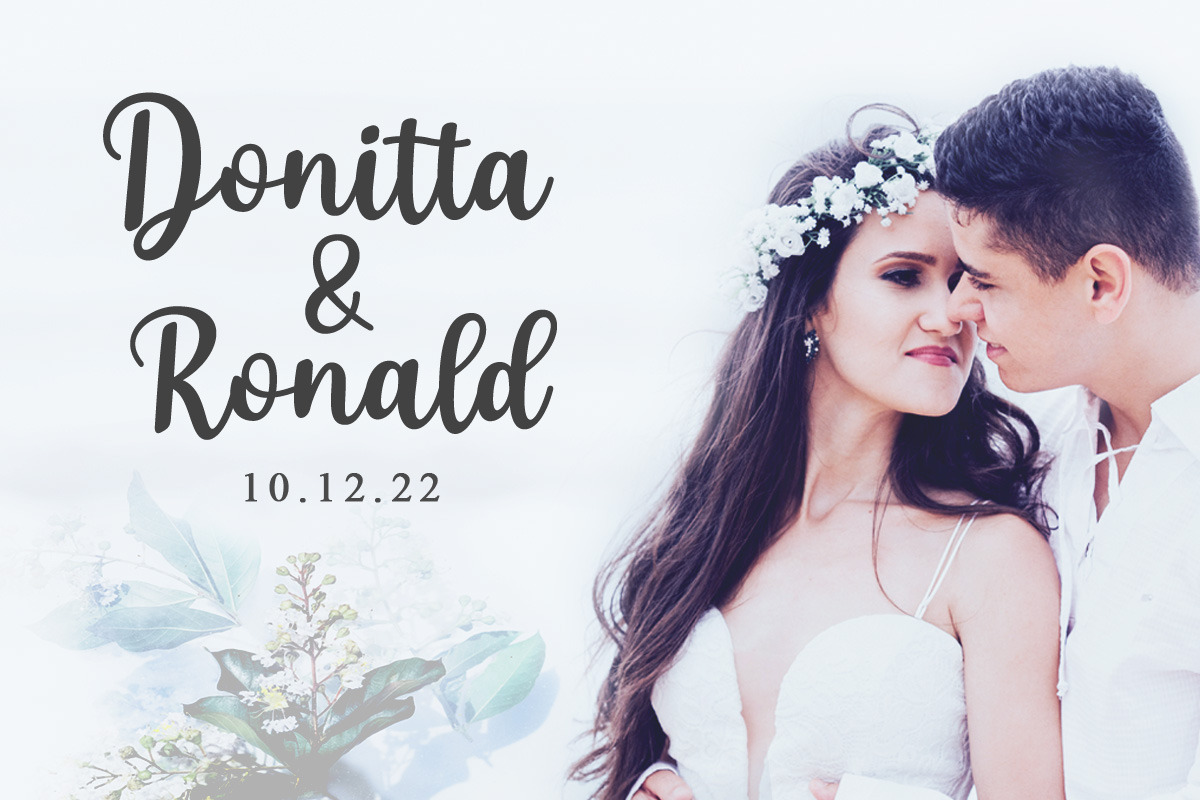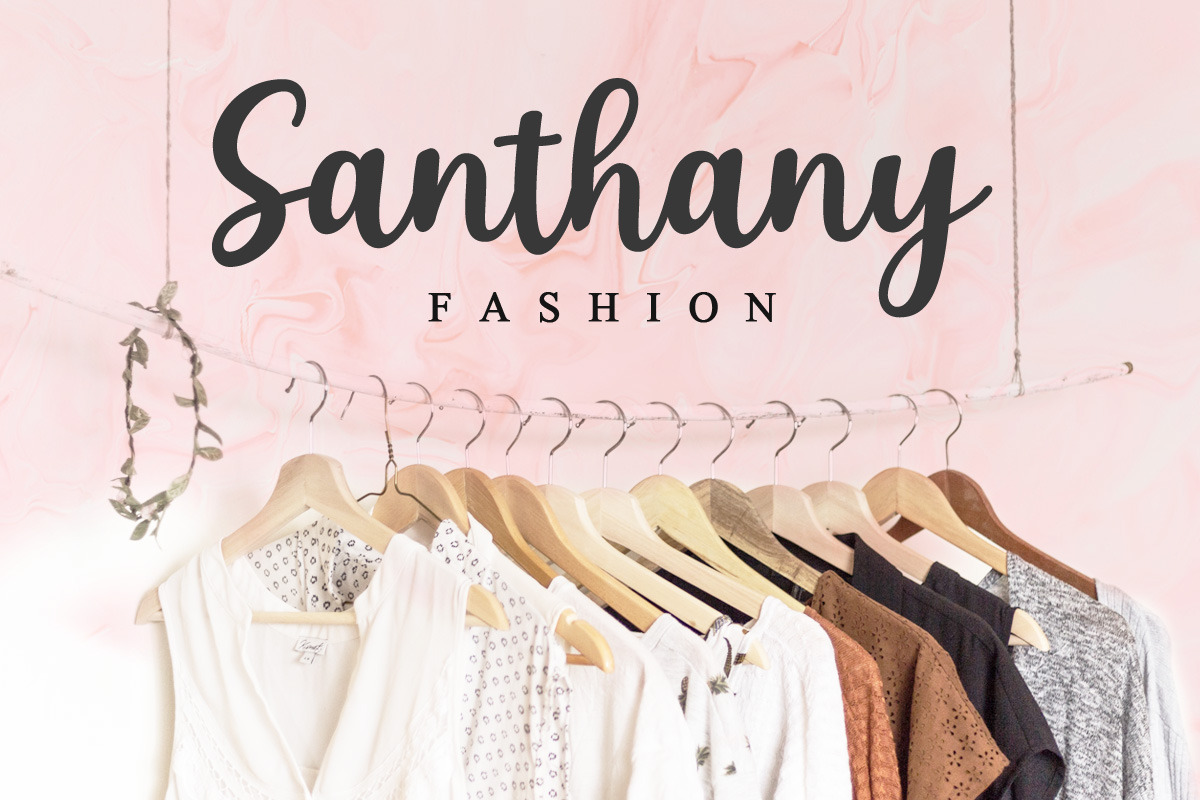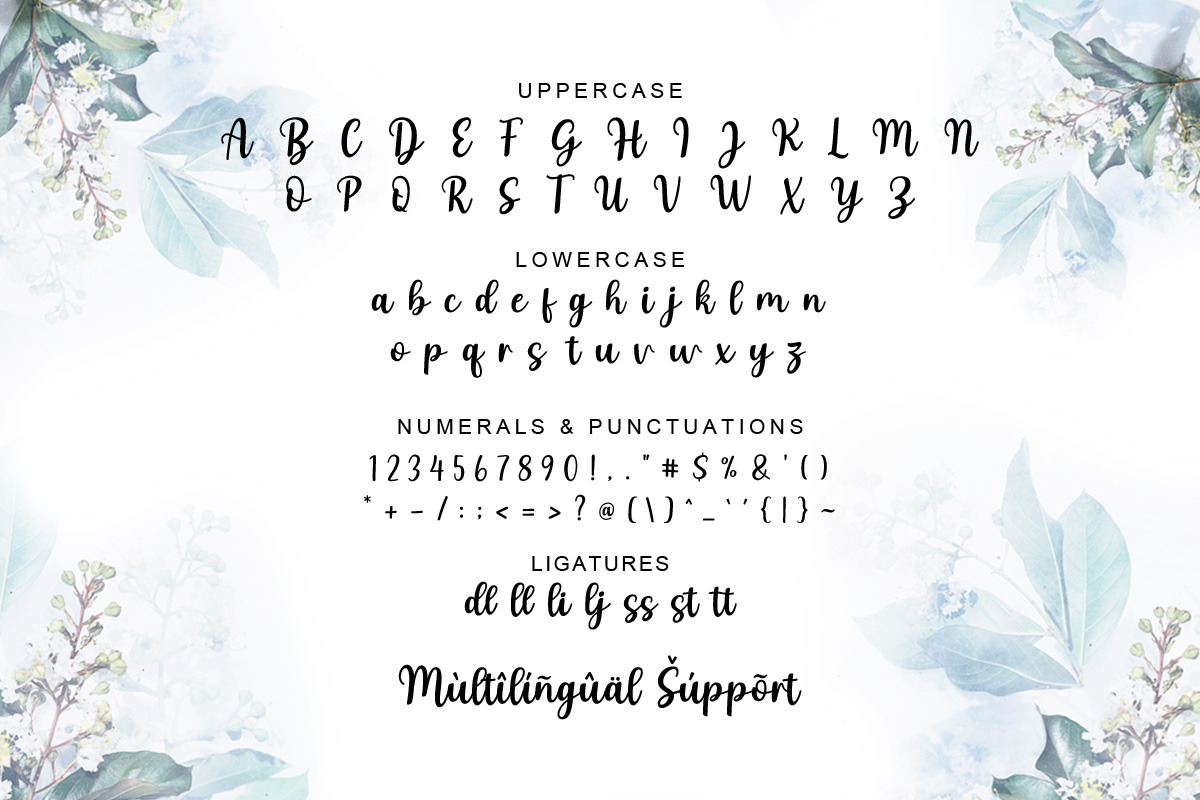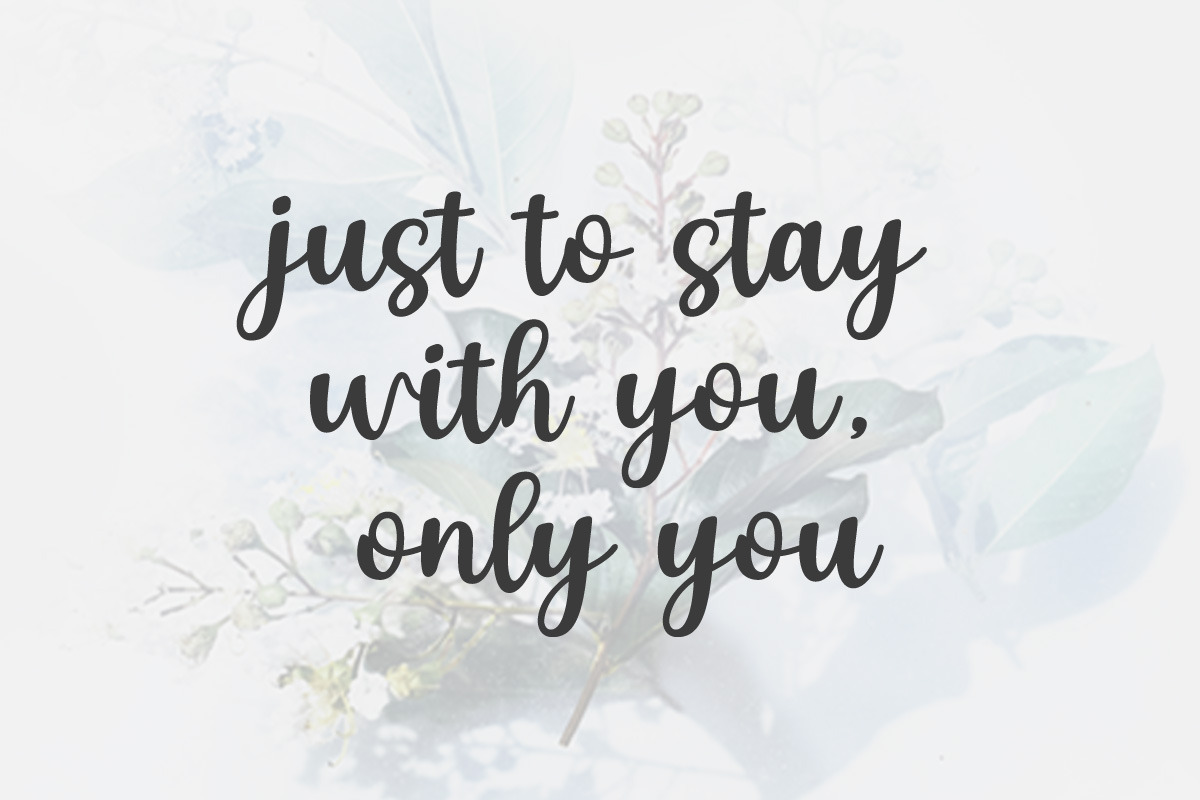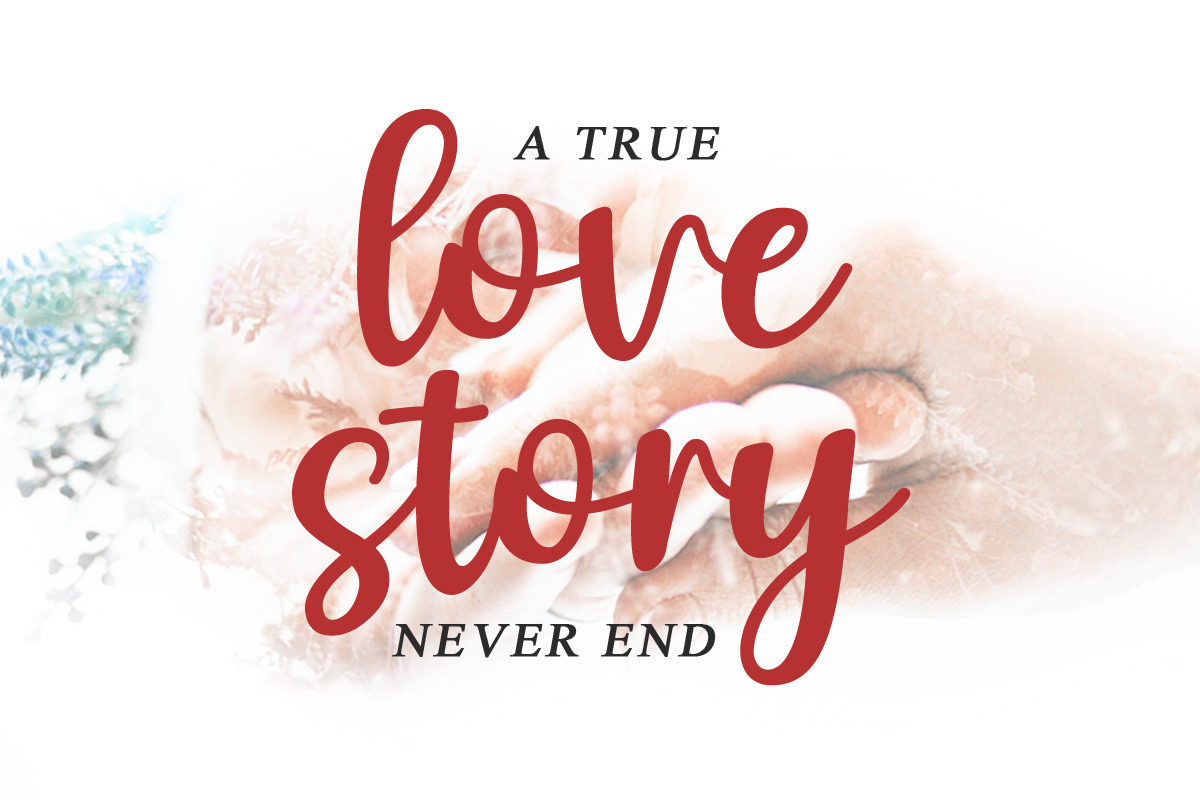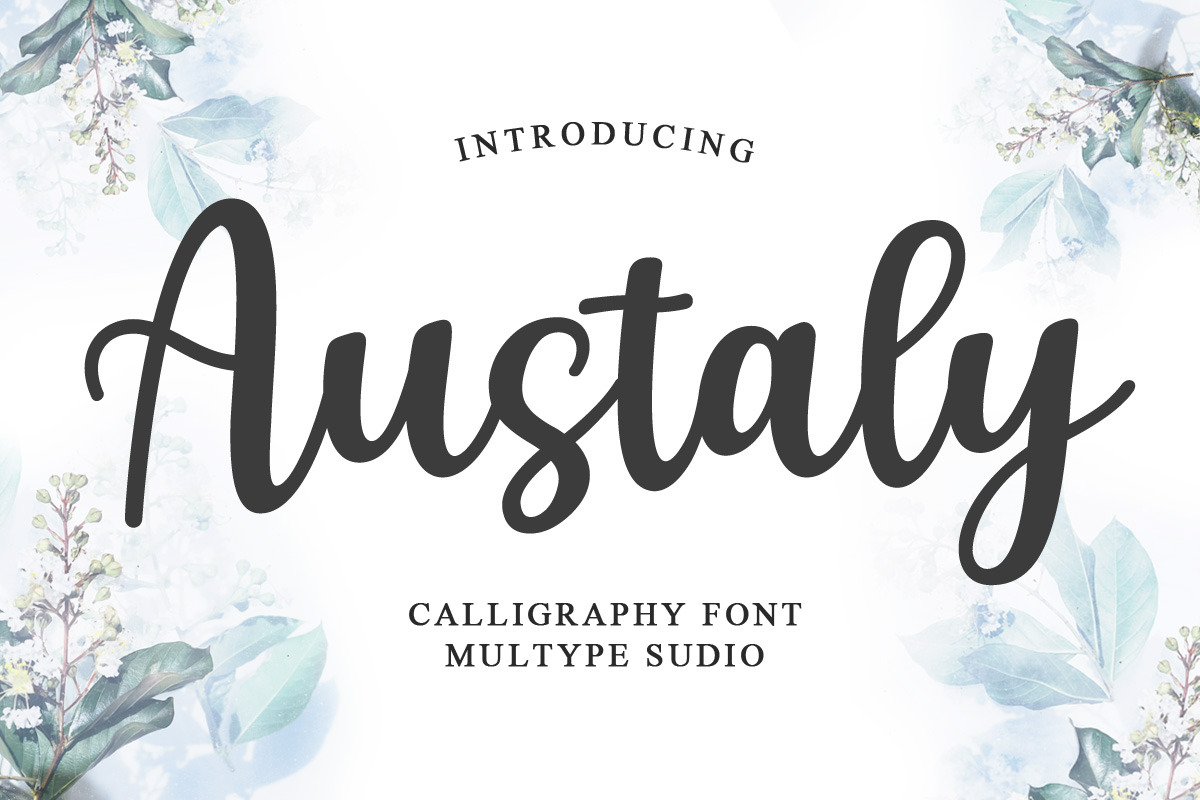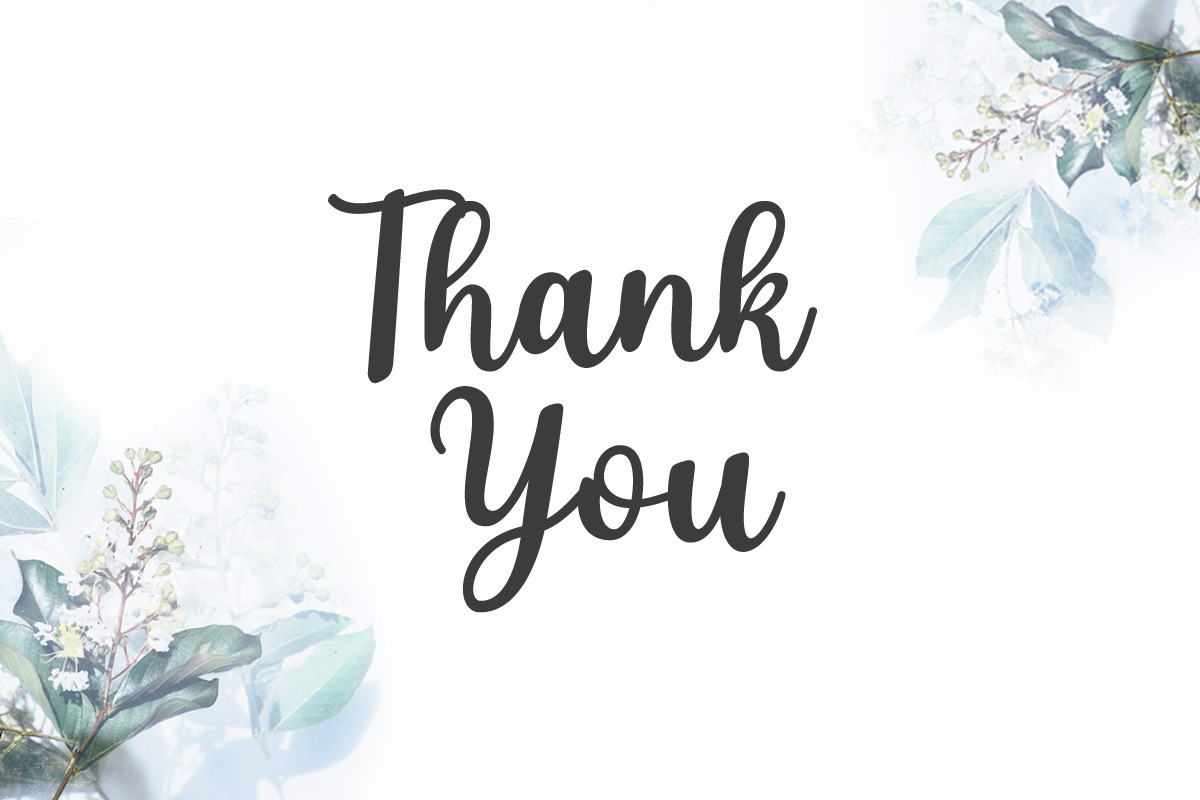
Austaly Calligraphy Font
Austaly is a beautiful modern calligraphy font, featuring fun characters with their font characteristics. Austaly is perfect for branding projects, logo, social media posts, wedding designs, advertisements, product packaging, watermark, invitation, stationery and any projects that need handwriting taste.
- Stylistic Alternate
- Numbers & Symbols